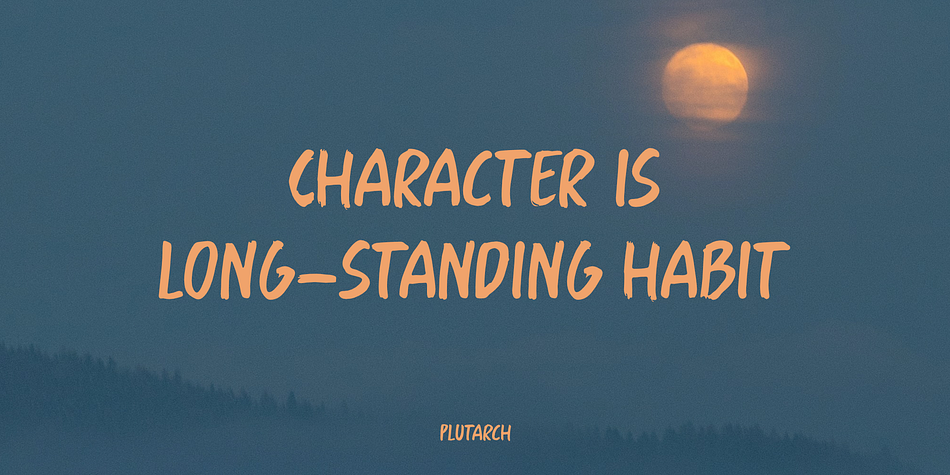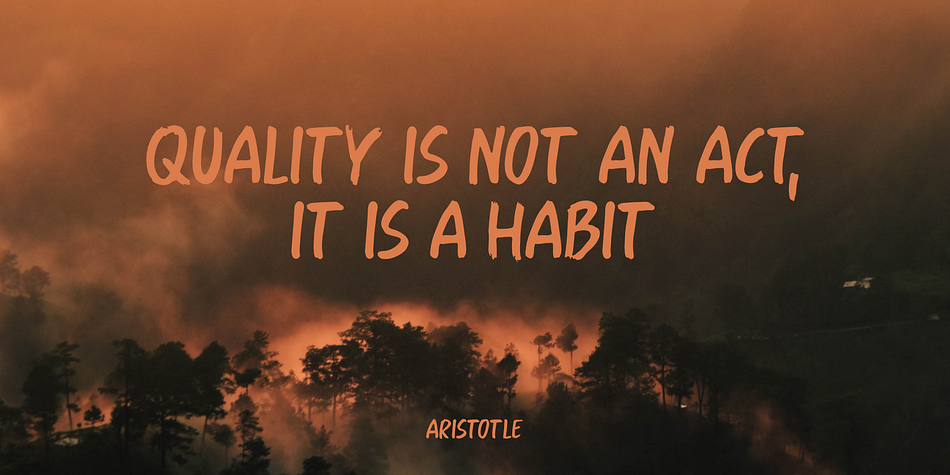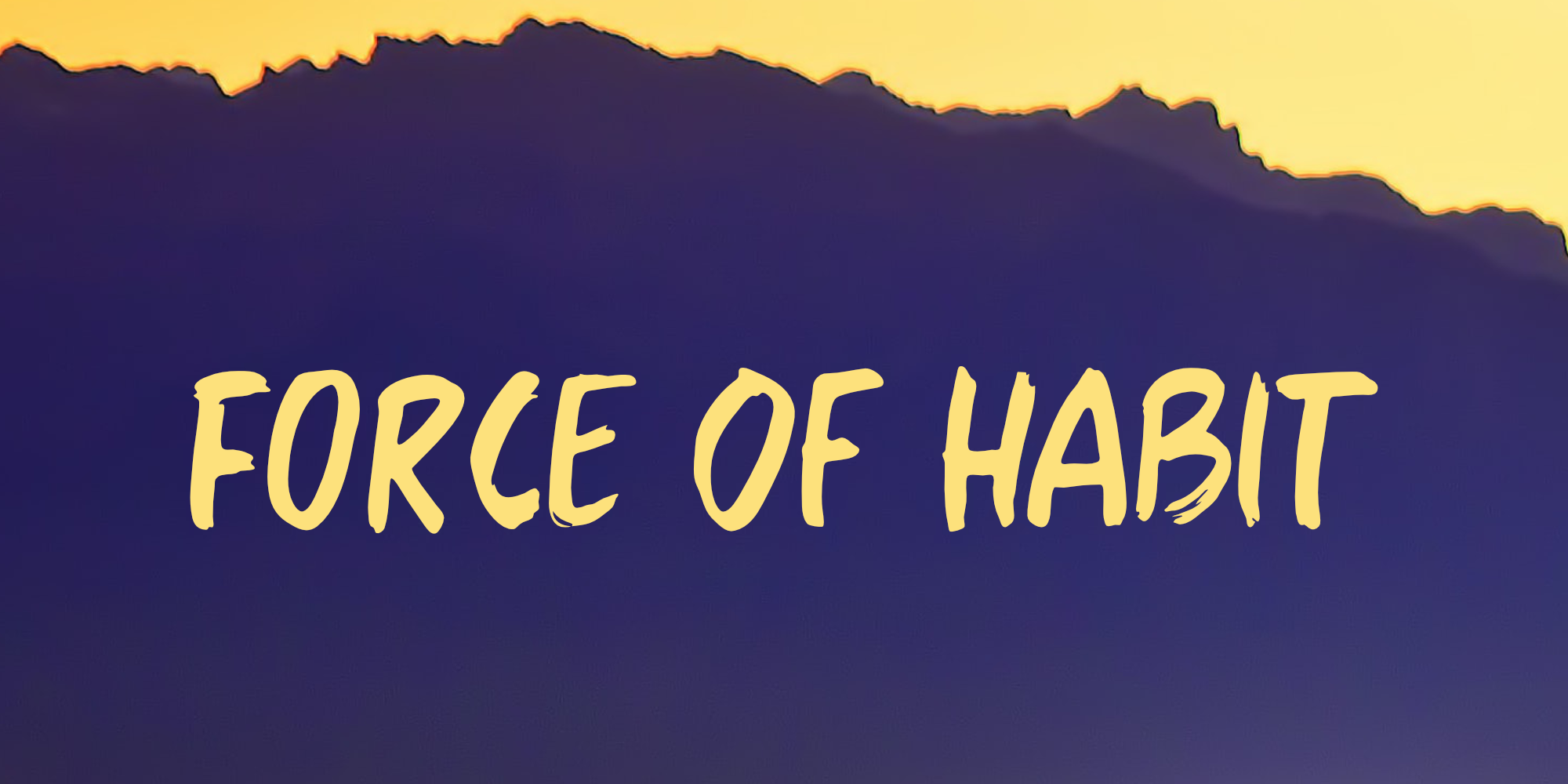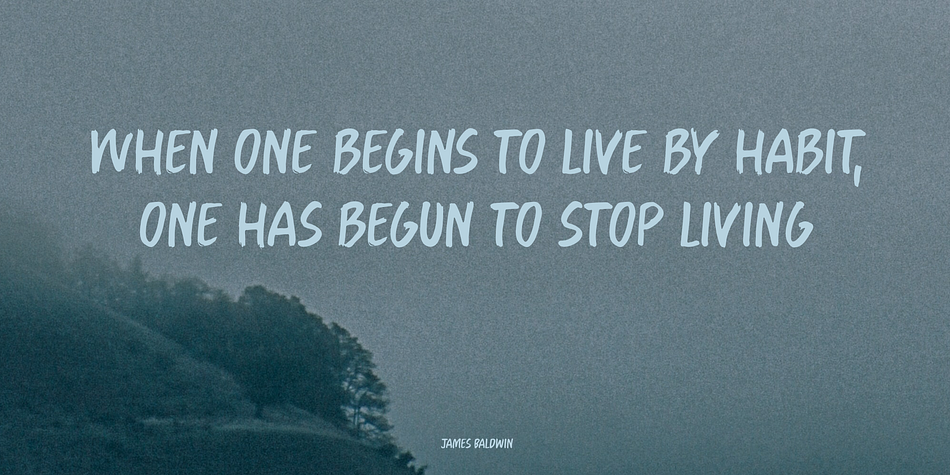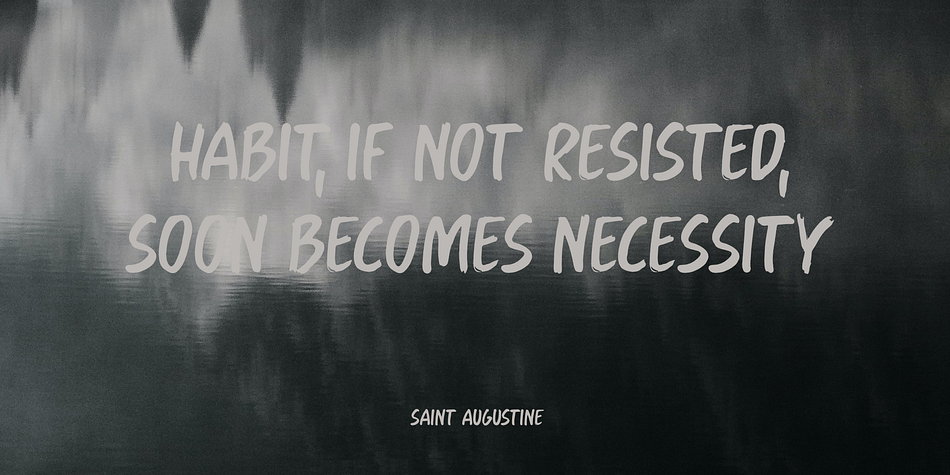
Force Of Habit
Force Of Habit is a multiple classification font family. This typeface has two styles and was published by Kitchen Table Type Foundry.
I am not really a creature of habit, but when I start working on a new font, I make myself a cup of coffee first. I guess you can call that a habit, so I decided to name this font Force Of Habit.
Force Of Habit is a nice brush font - made with a cheap pencil that I borrowed from the kids’ colouring box and my trusted (and seemingly ever flowing) Chinese ink.
Force Of Habit comes with extensive language support, some alternates and - quite possibly - a faint smell of freshly roasted coffee..